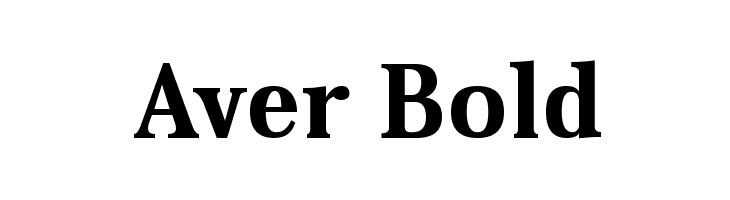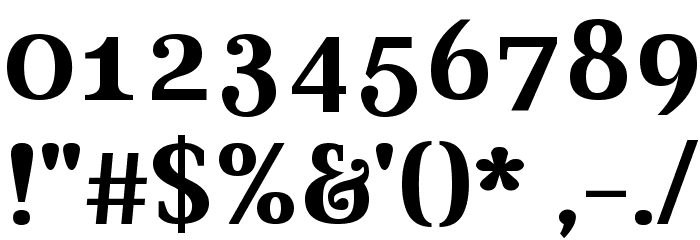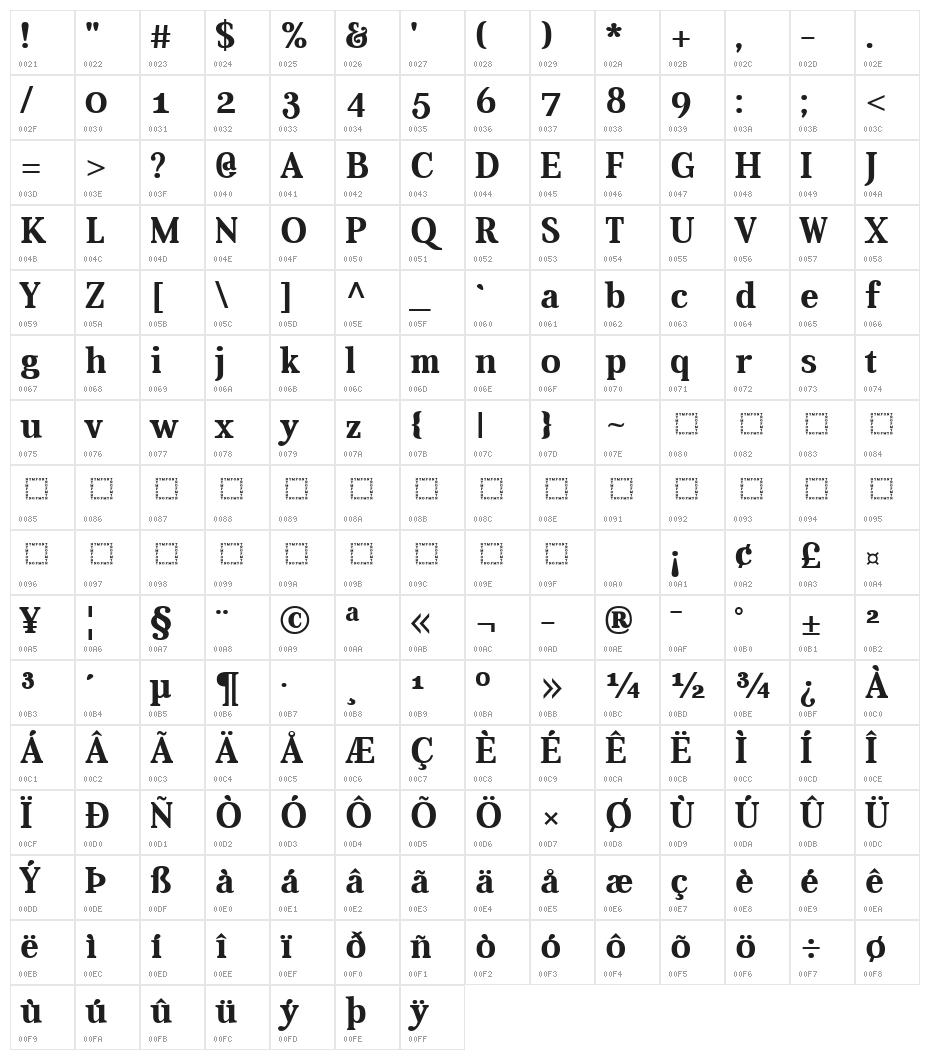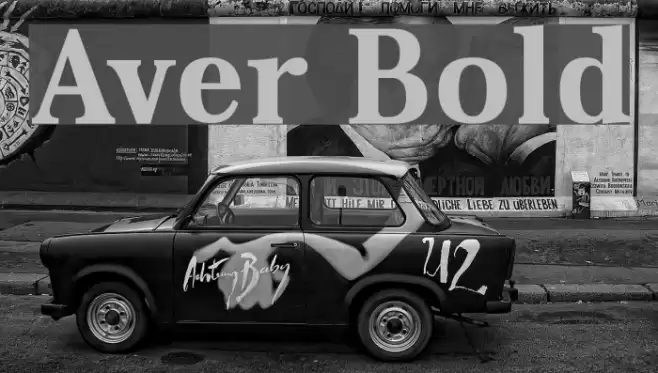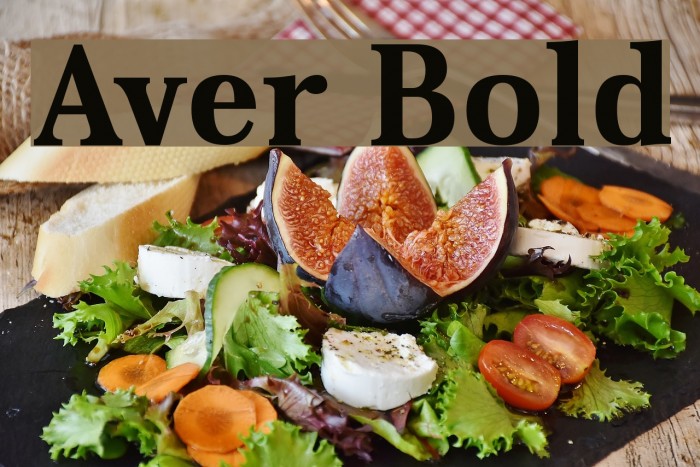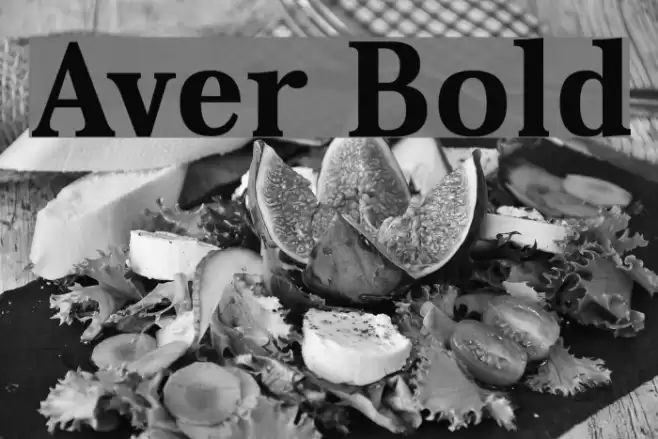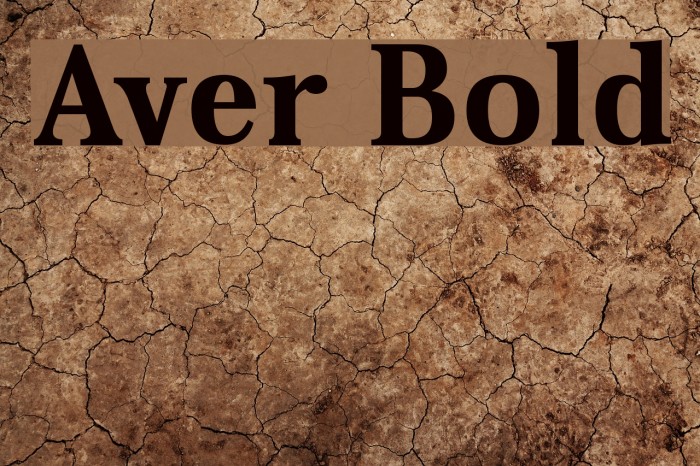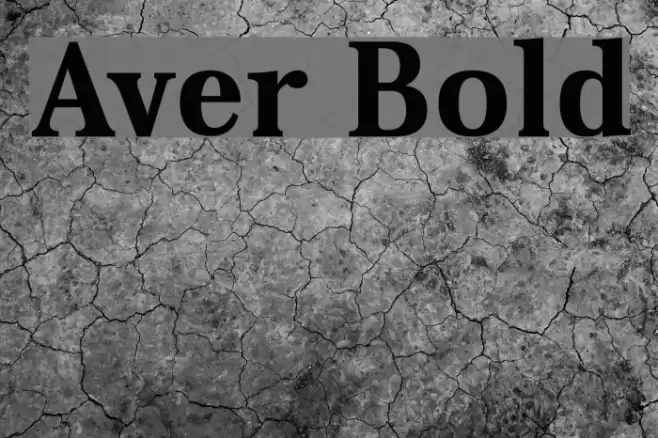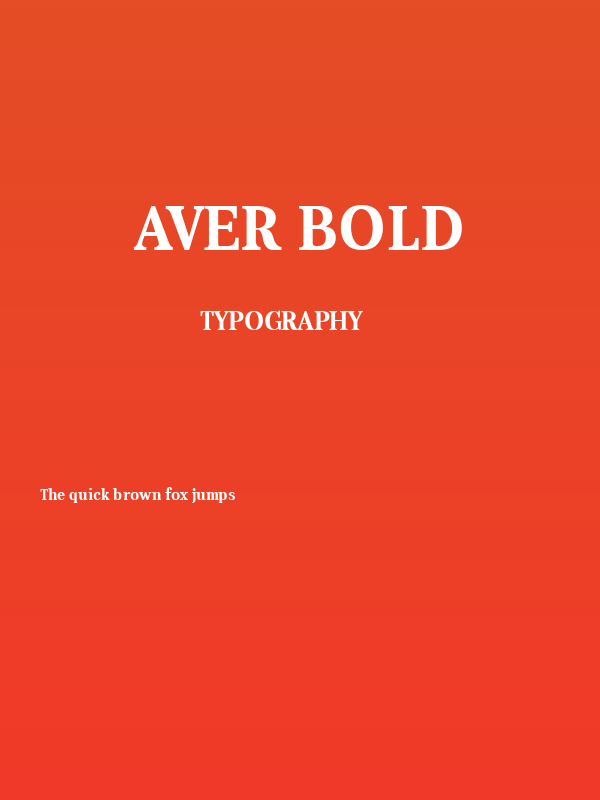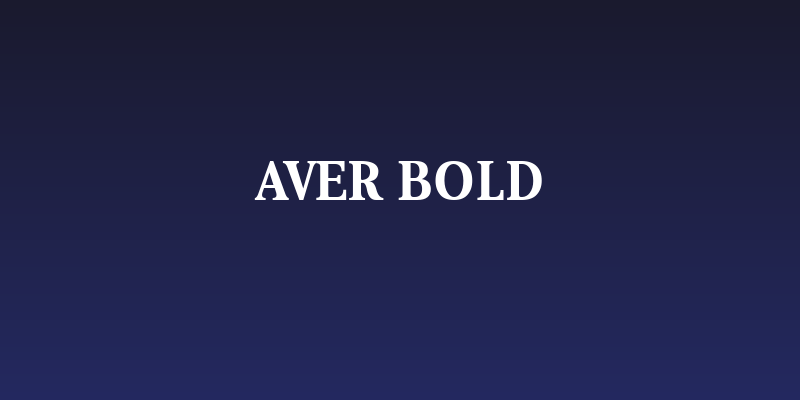
Aver Bold Font
Aver Bold Description
This font exhibits a bold and commanding presence with its thick, well-defined strokes and classic serif features. The uppercase letters are robust and authoritative, while the lowercase letters maintain a consistent weight, ensuring readability and balance. The numerals are equally bold, providing a strong visual impact. The special characters are designed with precision, complementing the overall aesthetic. This font is ideal for making a statement, offering a timeless and professional look that is both versatile and impactful.
Overall StyleClassic
Use CaseHeadlines, Logos, Editorial Design
Proposed ProjectsIdeal for headlines, branding, editorial design, and any project requiring a strong, authoritative typeface.